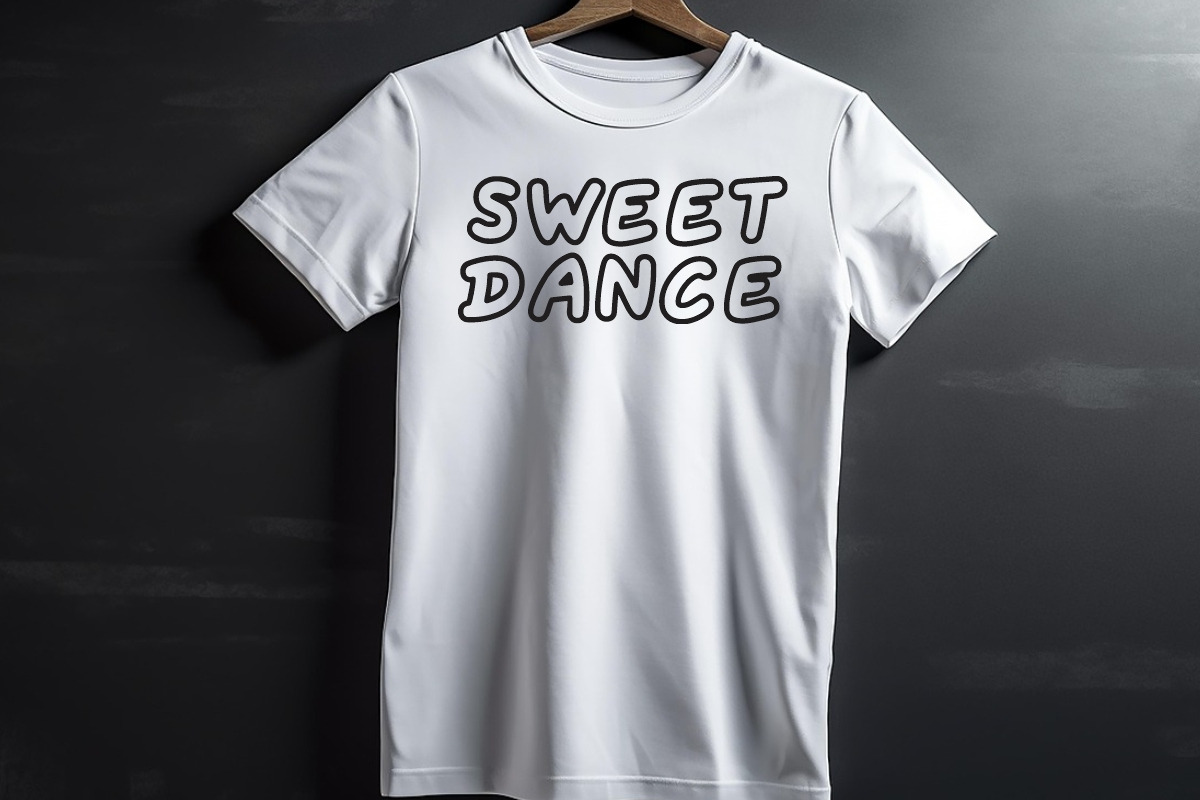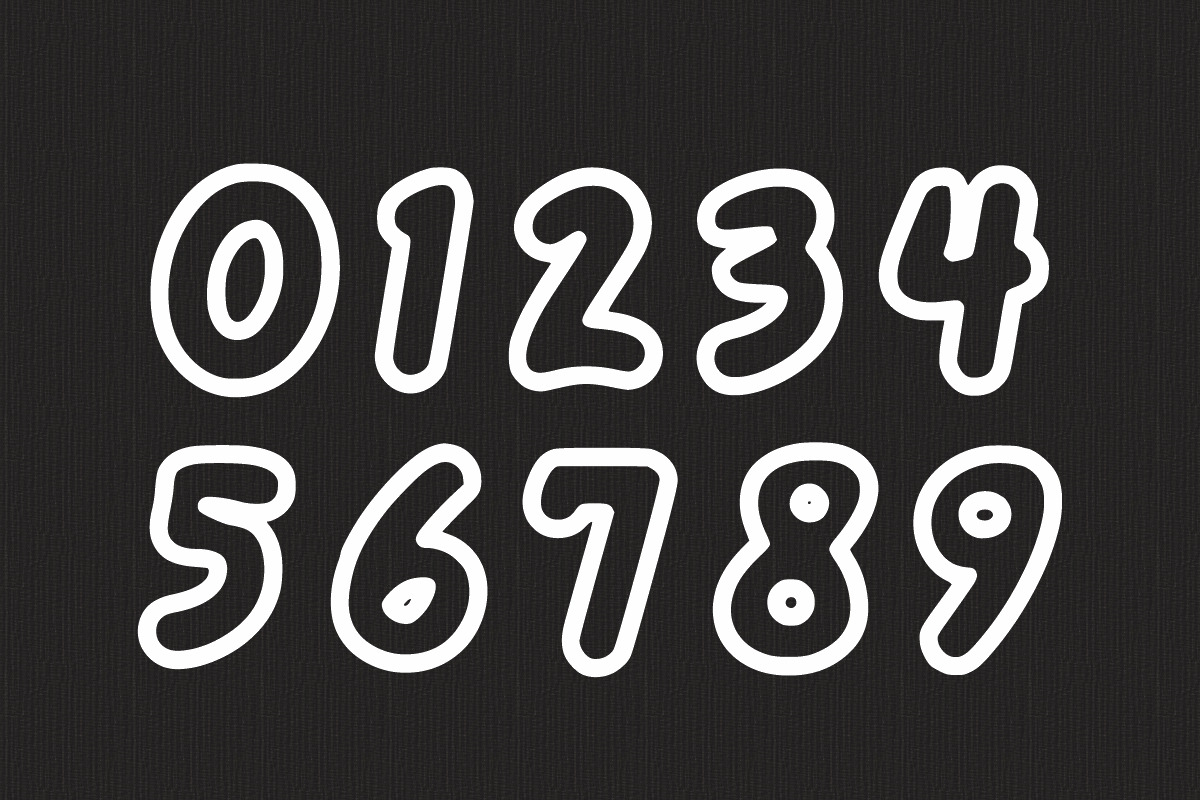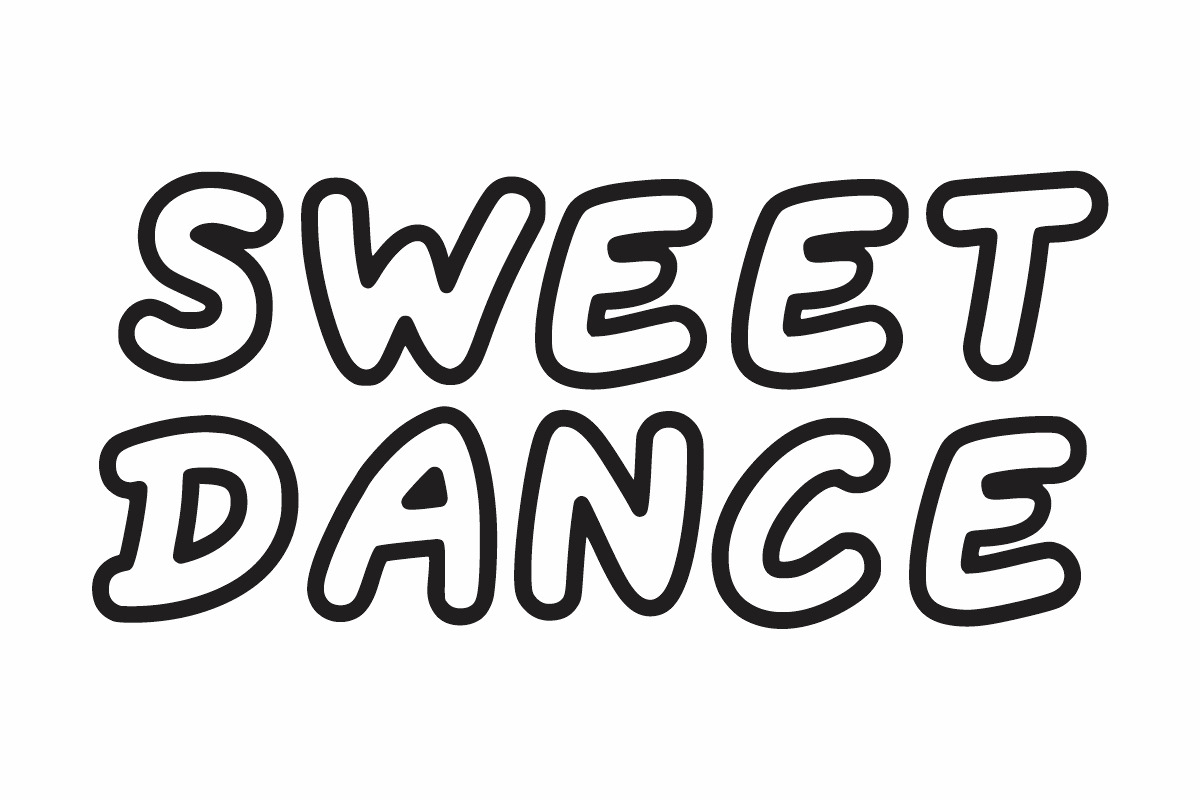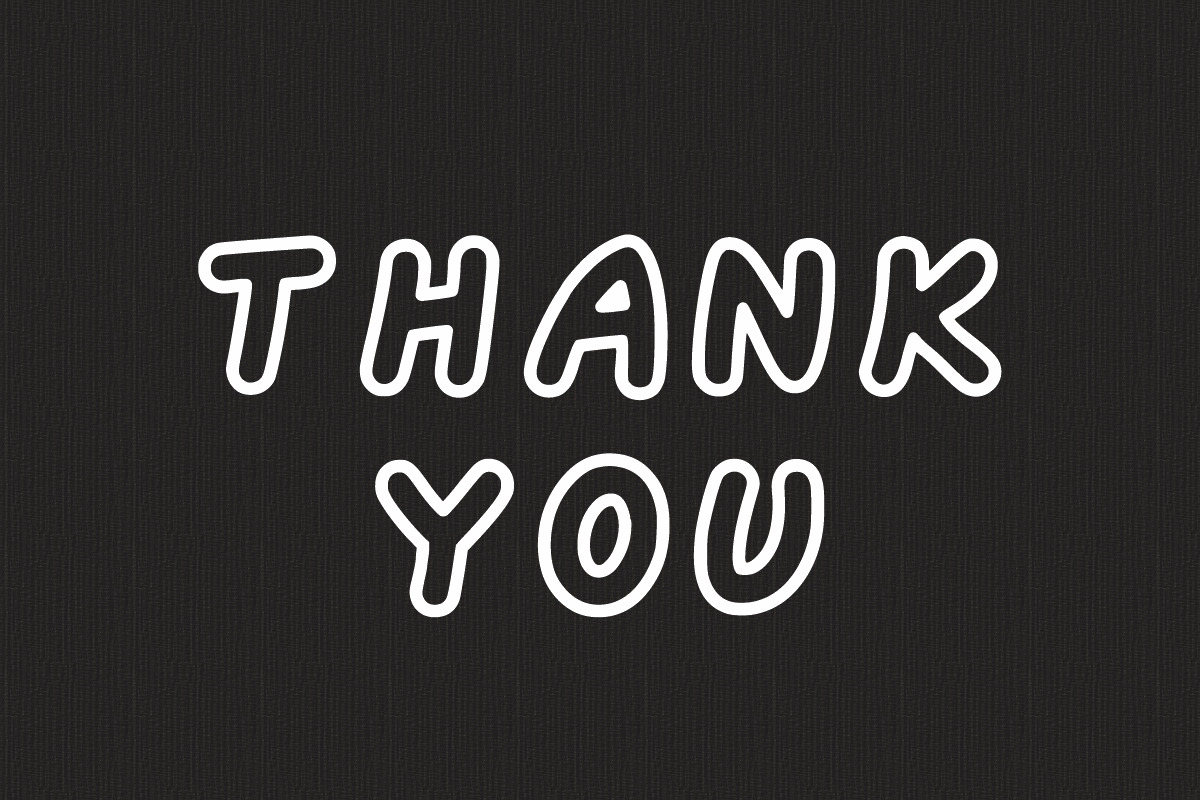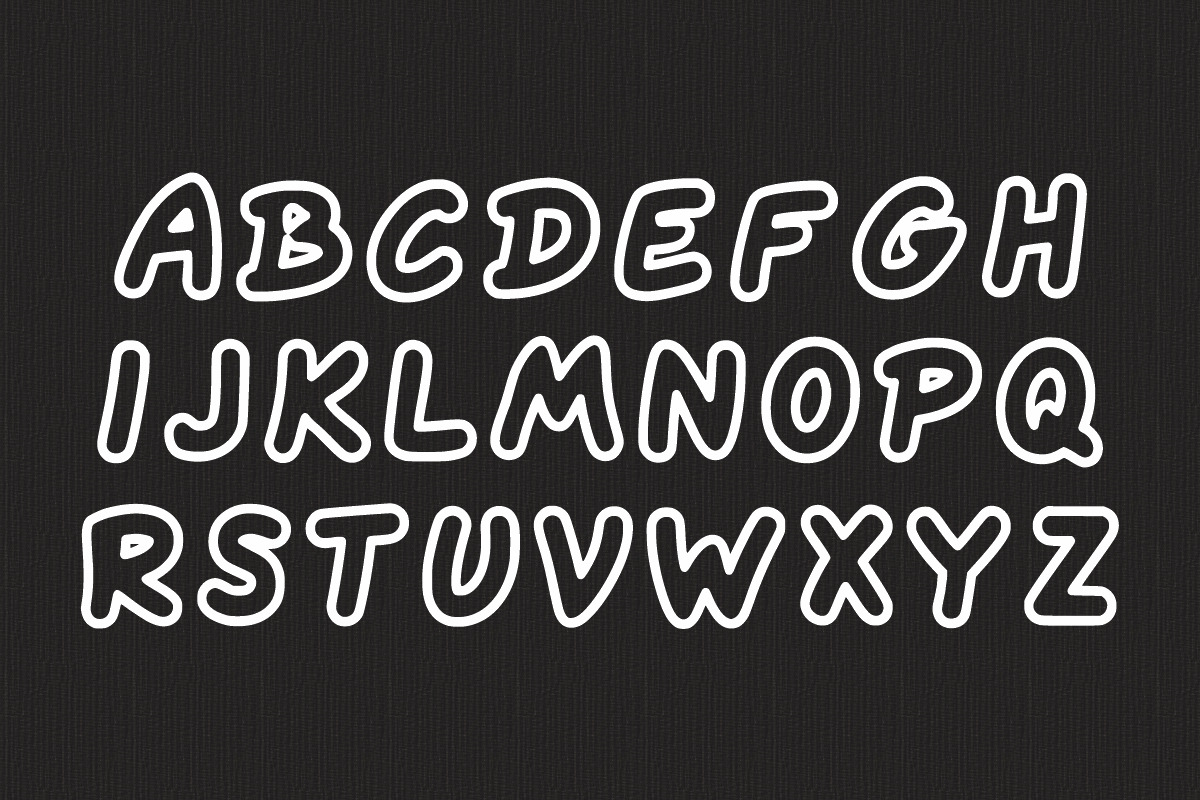
Sweet Dance Handwritten Outline
Sweet Dance is a cute, simple, and friendly outline handwritten display font. Its informal style and casual vibe will make this font a go-to choice for each of your creations that require a relaxed touch.
Sweet Dance font is suitable for any product packaging, invitation, quote, t-shirt, label, posters, or logos that you wish to develop!